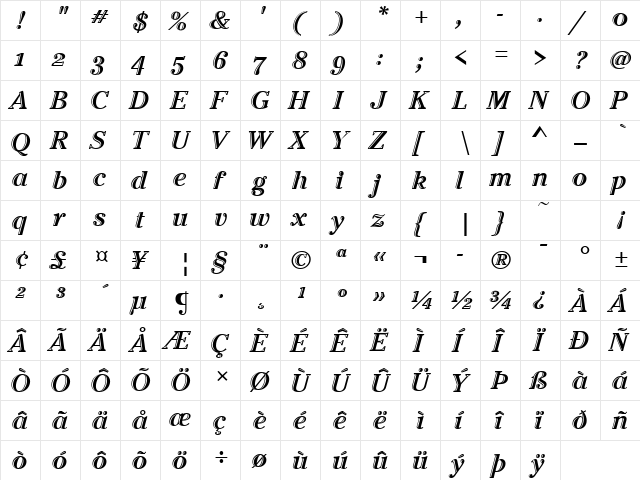
Cheltenham Htd OS ITC TT Italic
Design Context for Cheltenham Htd OS ITC TT Typeface
Cheltenham Htd OS ITC TT offers clean, dependable letterforms without strong stylistic allegiance, making it a practical choice for designers who need flexibility. The slanted form adds forward momentum and visual energy.
Pro Tip: Use Cheltenham Htd OS ITC TT for emphasis, pull quotes, and subheadings where its slanted energy can add rhythm to the layout.